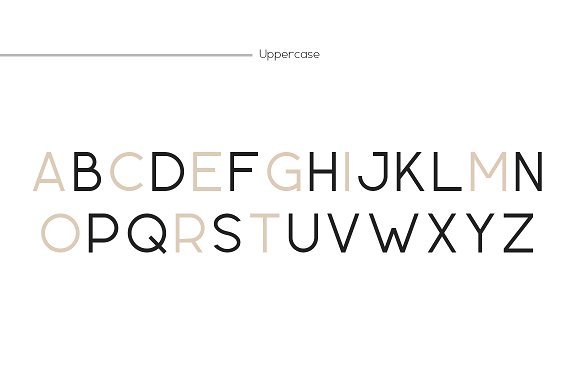
The most eye catching fonts on Google Docs in 2026 include Oswald, Playfair Display, Pacifico, and Lobster, among others. These standout fonts add personality and visual interest to resumes, marketing materials, and creative documents directly within Google Docs.
Why Eye Catching Fonts on Google Docs Matter for Modern Design
Choosing the right font can instantly elevate a document’s appeal, helping your message stand out in crowded digital spaces. For designers, bloggers, small business owners, students, and content creators, the available eye catching fonts on Google Docs can be the key differentiator for presentations, marketing materials, resumes, and branded content. However, Google Docs has a limited font library compared to professional design suites—making font selection with visual impact even more critical. In this up-to-date guide, you’ll discover not just the best Google Docs fonts for visual impact, but also practical tips and niche recommendations to ensure your projects look fresh and professional in 2026. Plus, if you need even more unique options, Creative Fabrica provides designer-grade alternatives you can use outside of Google Docs as well. 35 Best Art Deco Fonts for Professional Projects 2026 Make your content memorable by leveraging these expertly chosen fonts and practical advice below.
Top 5 Eye Catching Fonts on Google Docs: Quick Comparison
| Oswald | Condensed Sans-Serif | Headings, Resumes, Posters | Free (Google Docs Built-in) |
| Playfair Display | Serif, Elegant | Editorial Design, Invitations | Free (Google Docs Built-in) |
| Pacifico | Script, Casual | Personal Projects, Branding | Free (Google Docs Built-in) |
| Lobster | Script, Retro | Logos, Ads, Creative Docs | Free (Google Docs Built-in) |
| Montserrat | Modern Sans-Serif | Web Design, Presentations | Free (Google Docs Built-in) |
15 Stunning Eye Catching Font Alternatives from Creative Fabrica
Multicolor Geometric Font by Imagination Switch · Creative Fabrica
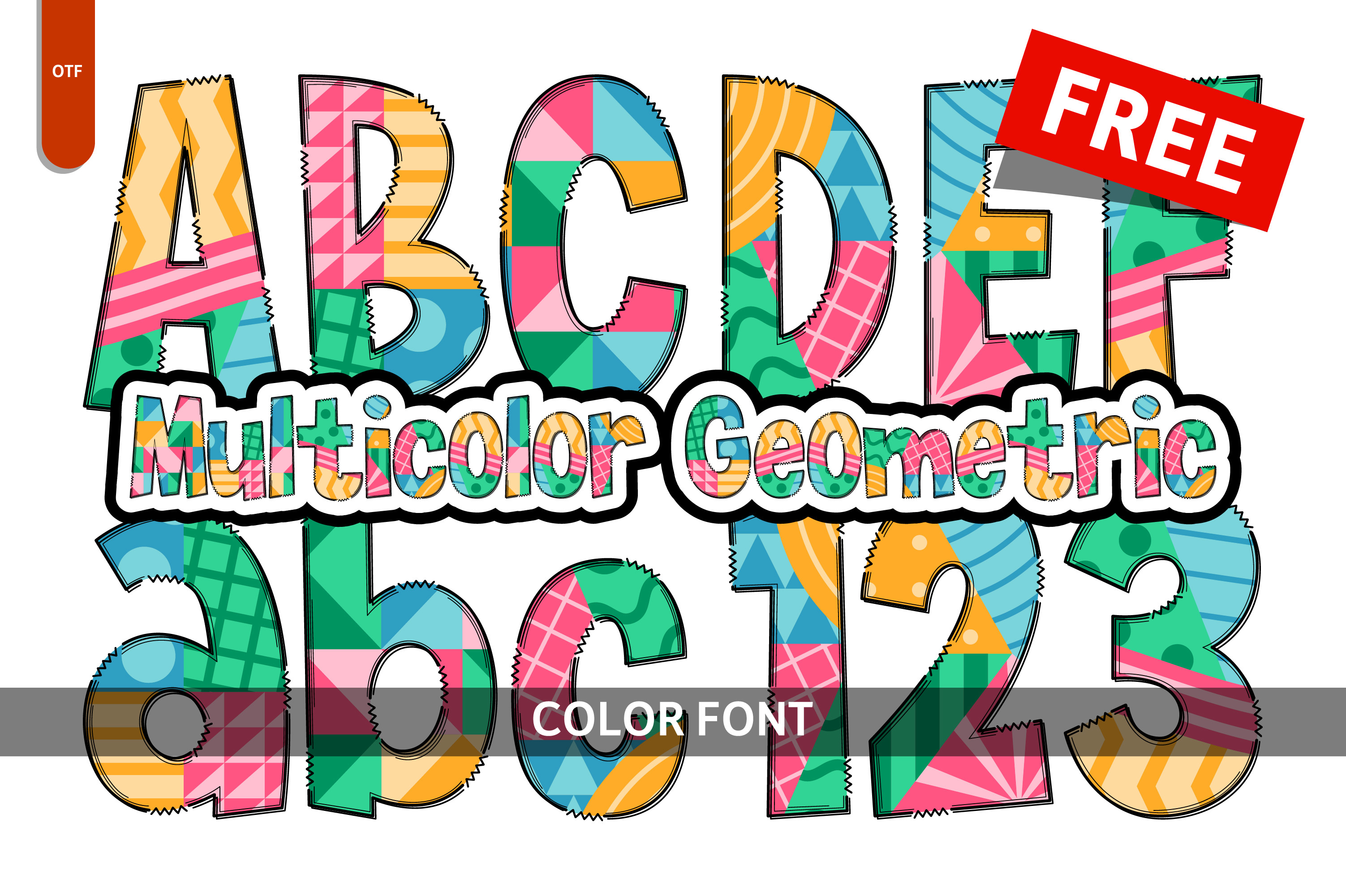
This font bursts with vibrant geometric shapes, providing a playful yet structured feel. Ideal for event posters, children’s book illustrations, or lively brand identities, Multicolor Geometric brings an energetic, unforgettable style. It’s perfect for projects where you want every word to draw the reader’s eye.
Geometry Font by The Best Altphabet · Creative Fabrica
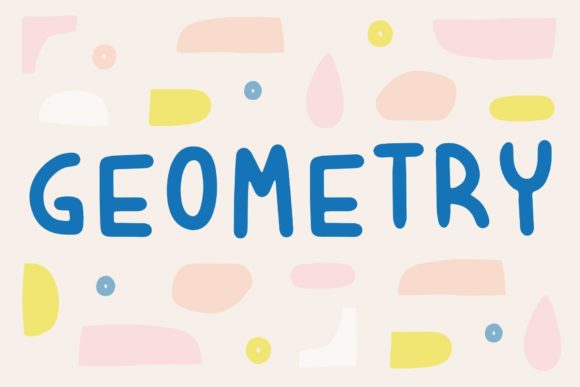
With strong lines and bold shapes, this font makes headlines and titles pop. Geometry Font is highly readable yet artistic, making it suitable for tech blogs, app designs, restaurant menus, or any modern branding that demands attention. Its symmetry ensures a polished, high-impact look.
Geometric Patterns Font by The Tenacious Type Studio · Creative Fabrica
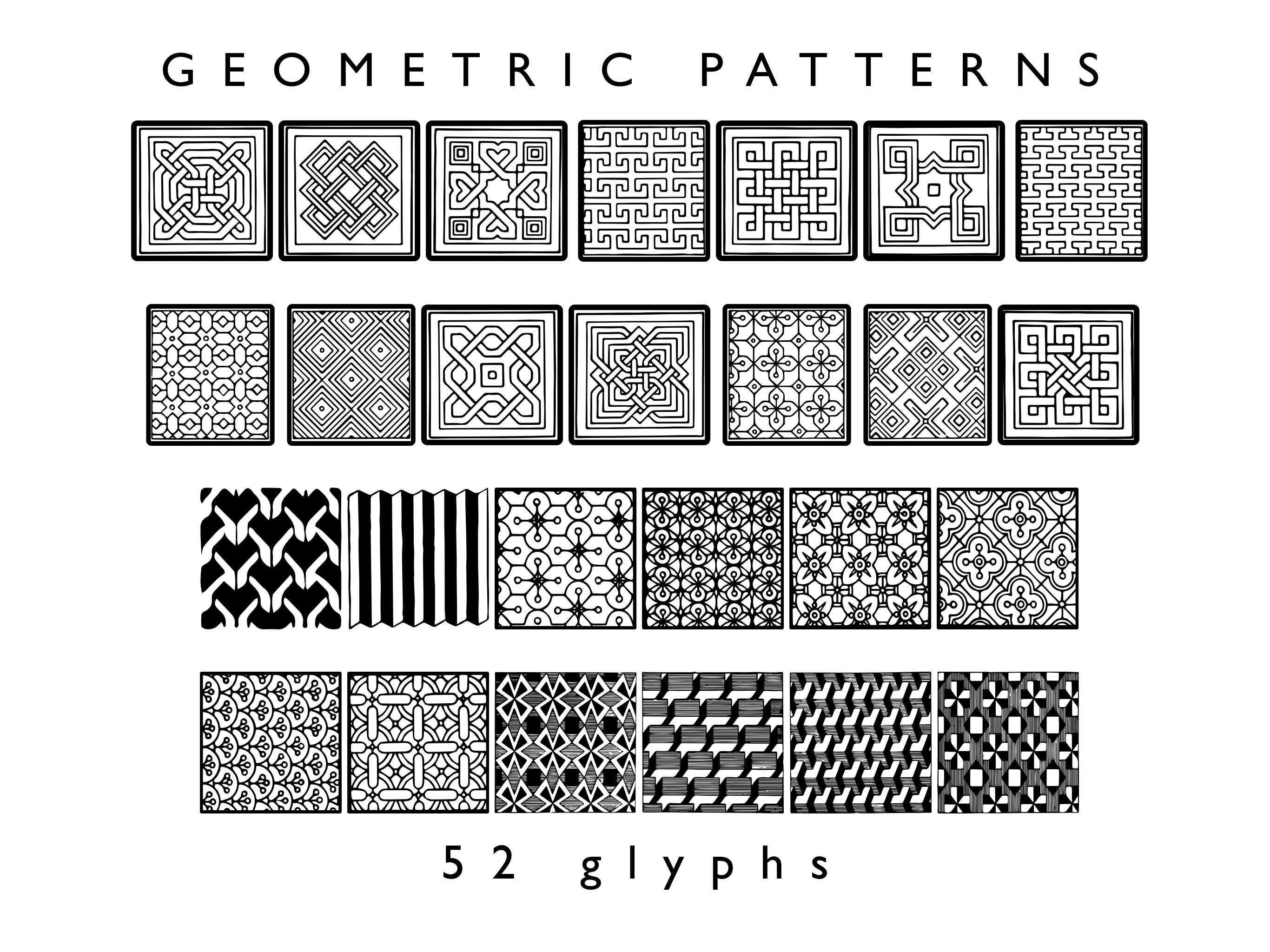
This font blends lettering with decorative geometric patterns, creating a unique fusion ideal for invitations, event flyers, or artistic branding. Geometric Patterns Font adds an experimental flair and is especially effective for projects that want to communicate creativity and sophistication.
Geometric Font by The Tenacious Type Studio · Creative Fabrica
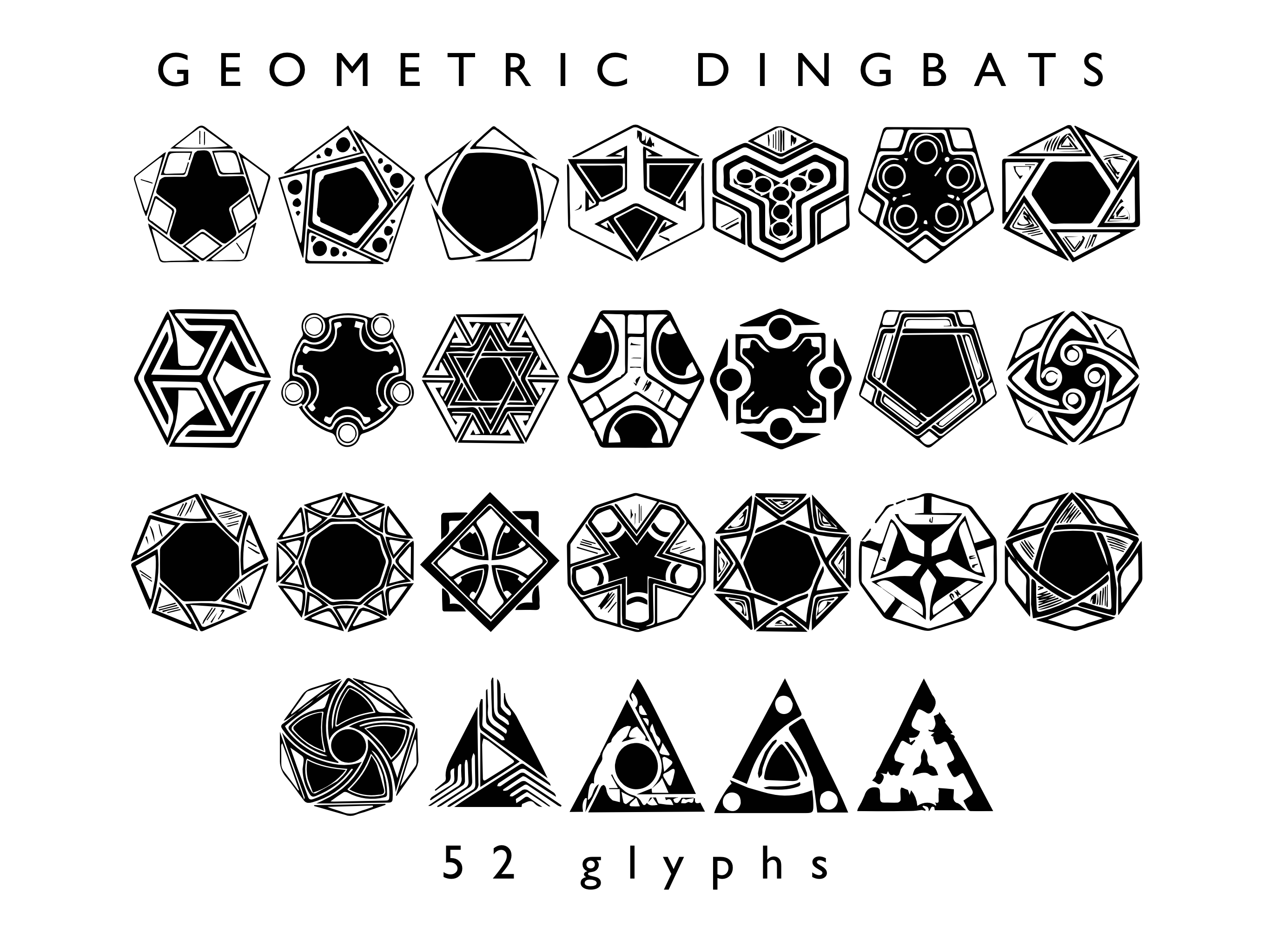
A harmonious mix of simple shapes and elegant curves, Geometric Font is versatile for tech startups, educational materials, or clean branding. Its clarity and balance make it a solid choice for both print and digital work, enhancing everything from business cards to signage.
Geometry Font by MyFontsShop · Creative Fabrica
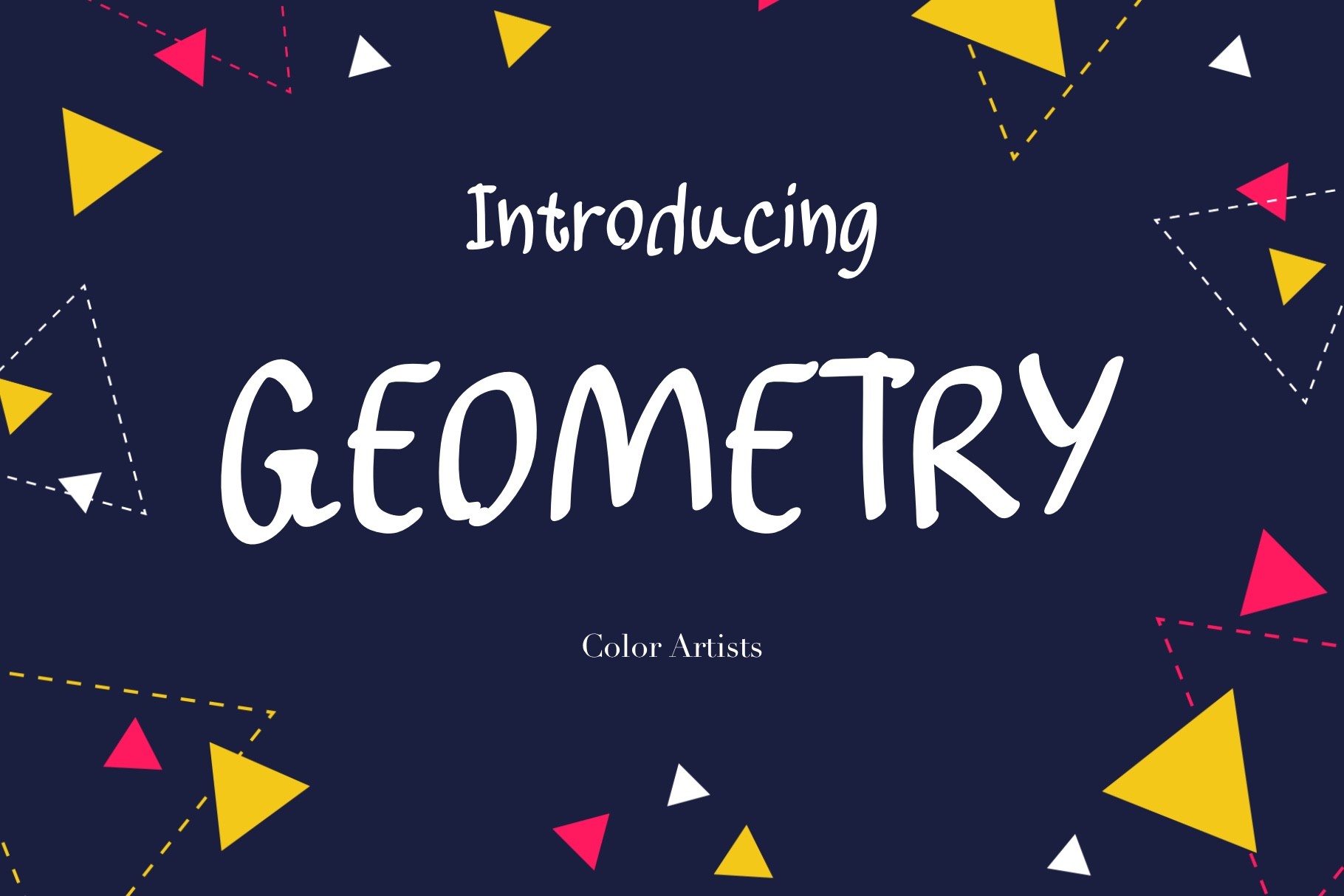
This font stands out with crisp, futuristic forms and unique angles. Geometry Font by MyFontsShop excels in tech presentations, product packaging, or creative portfolios. Its strong identity helps your message capture attention and leaves a modern impression.
Flexing Font by SayStudio · Creative Fabrica
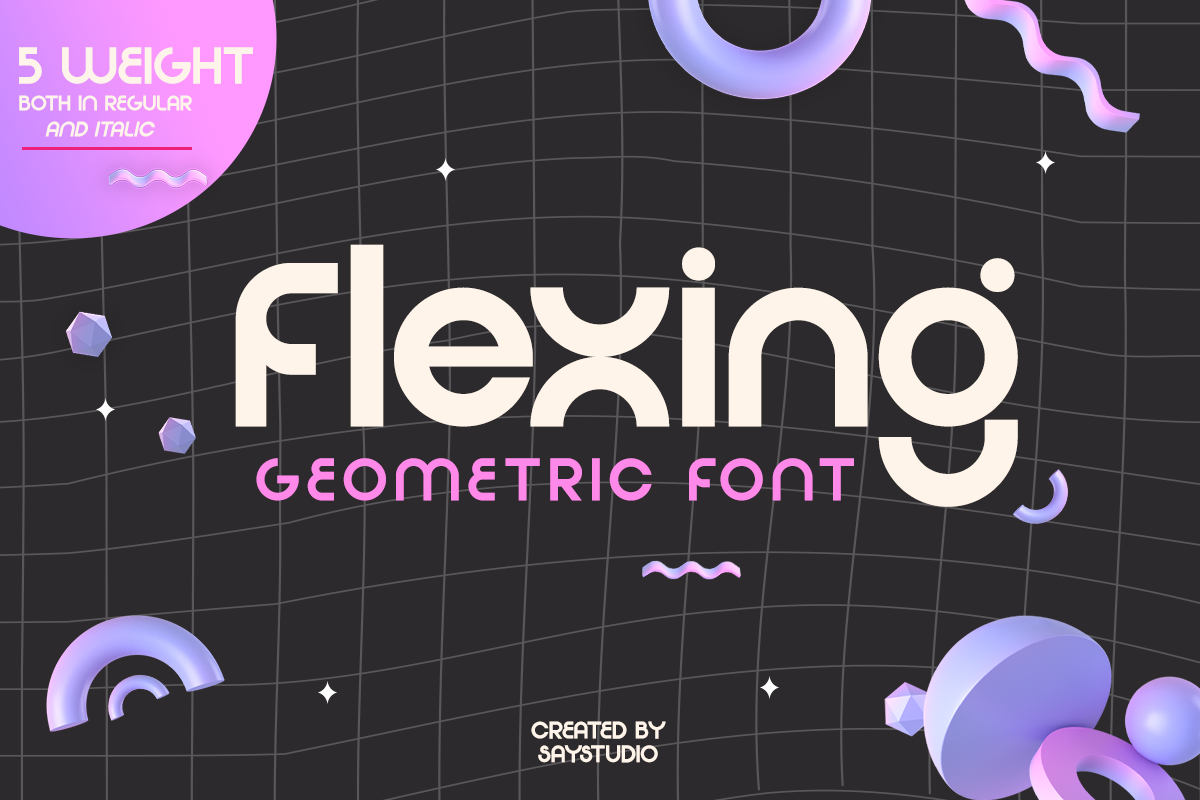
Flexing Font has a bold, expressive feel, featuring geometric elements with a contemporary twist. It’s an excellent pick for social media graphics, athletic event posters, or brand campaigns aiming for a dynamic, trend-forward look.
Geometric Crystal
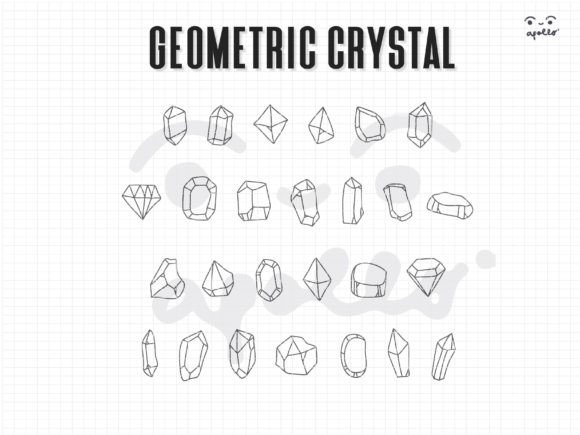
This whimsical font mimics sparkling crystals with geometric bases, ideal for fantasy book titles, artisan brands, or boutique signage. Geometric Crystal conveys a magical, stylish vibe, perfect for any work that wants to appear both classy and unique.
Digital Geometric Font by 177Studio · Creative Fabrica
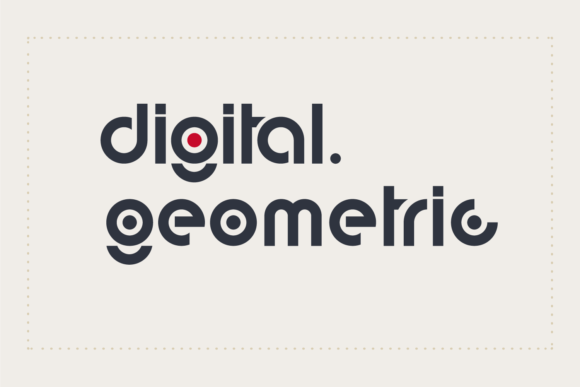
Designed with retro-futuristic digital vibes, this font fits gaming banners, tech startups, and cyber-themed marketing. Digital Geometric combines pixelated and geometric aesthetics for a distinctly modern yet nostalgic feel.
Delivery Font by artyway · Creative Fabrica
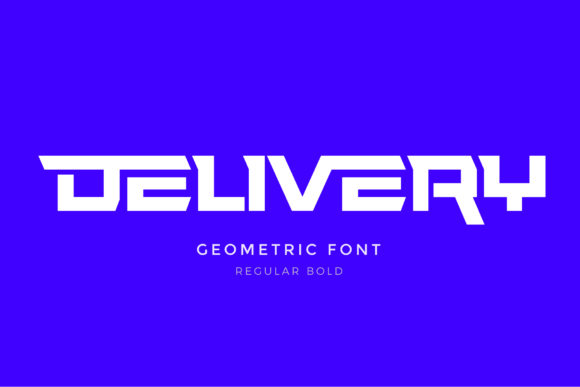
Delivery Font is dynamic and bold, with distinctive angular strokes reminiscent of rapid motion. Perfect for fast food branding, delivery services, or energizing event posters, it adds urgency and excitement to any communication.
All of these typefaces are powered by the extensive Google Fonts library, making them easily accessible for any project.